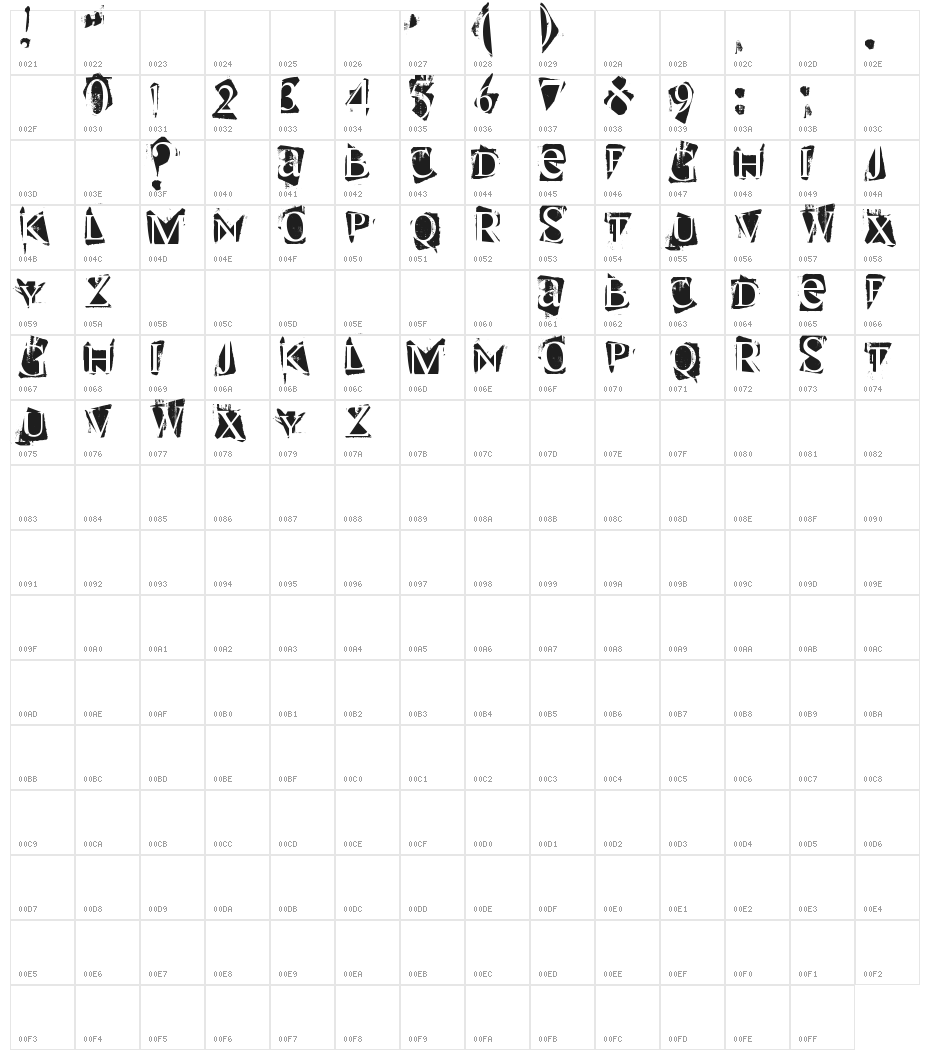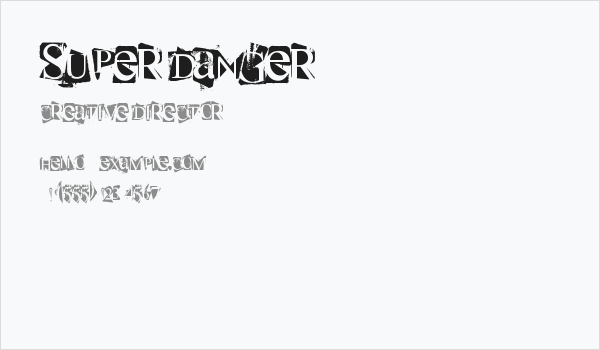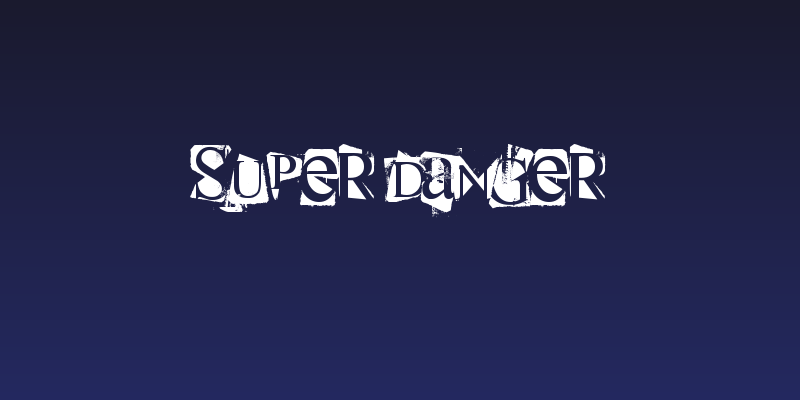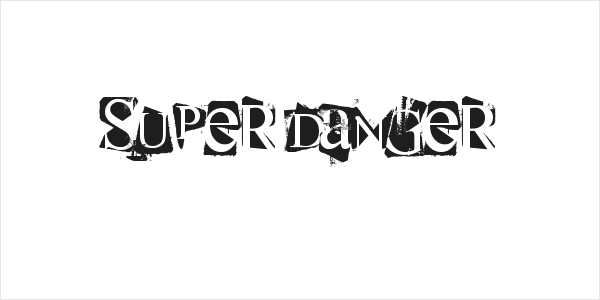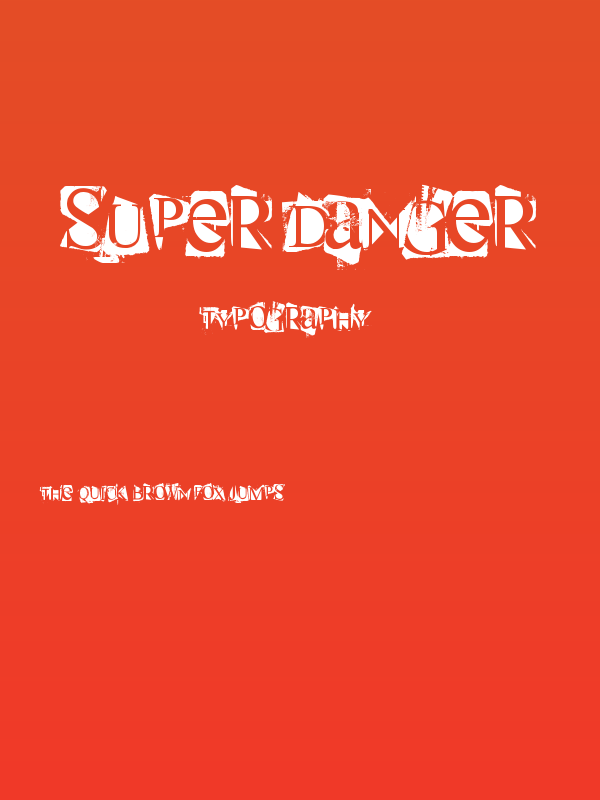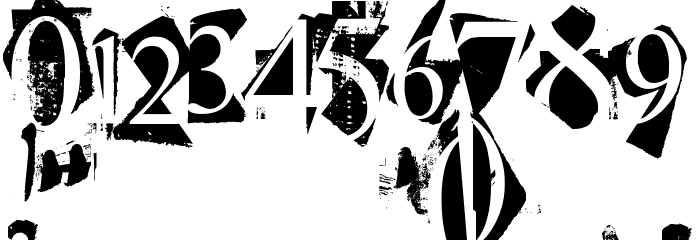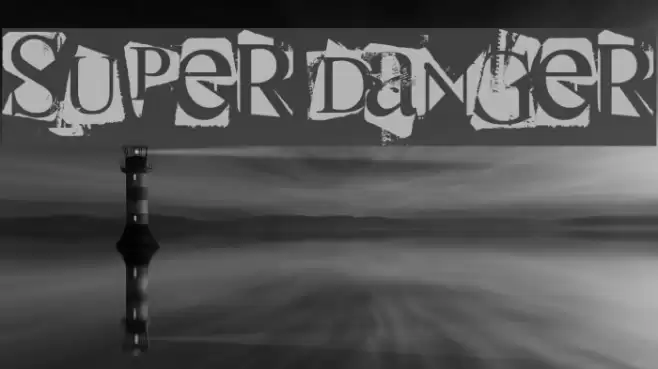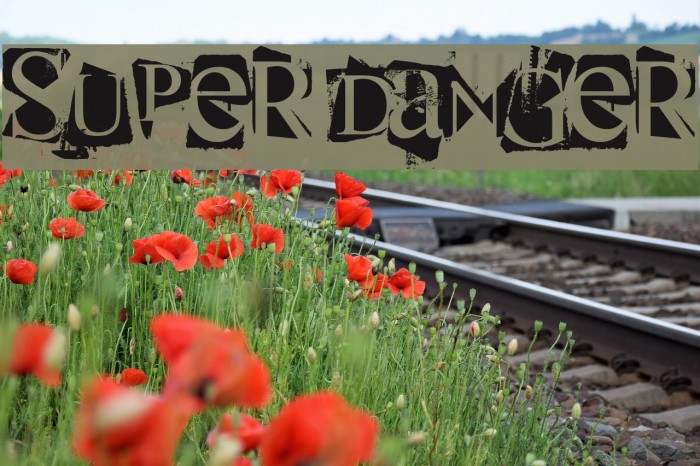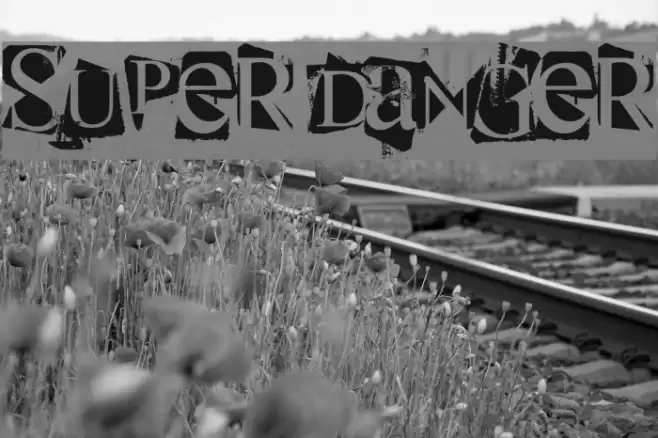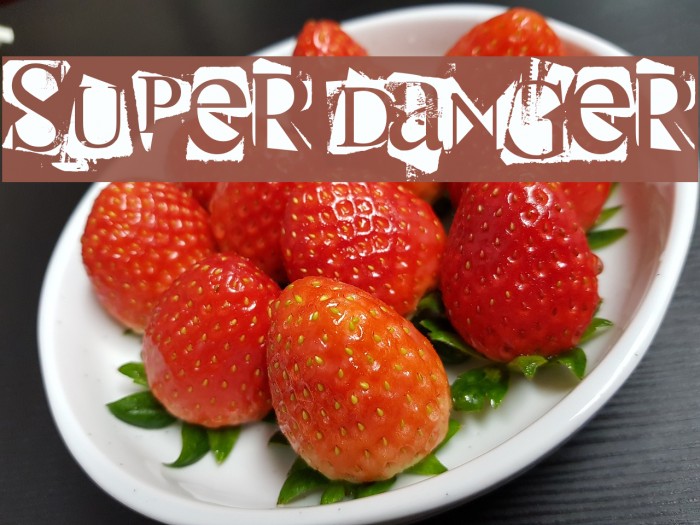
super danger Font
✎ Distorted Eroded
| カテゴリ | Distorted Eroded |
| 全体的なスタイル | Grunge, Edgy, Distressed |
| おすすめプロジェクト | Ideal for music album covers, edgy posters, streetwear branding, or any project needing a bold, rebellious look. |